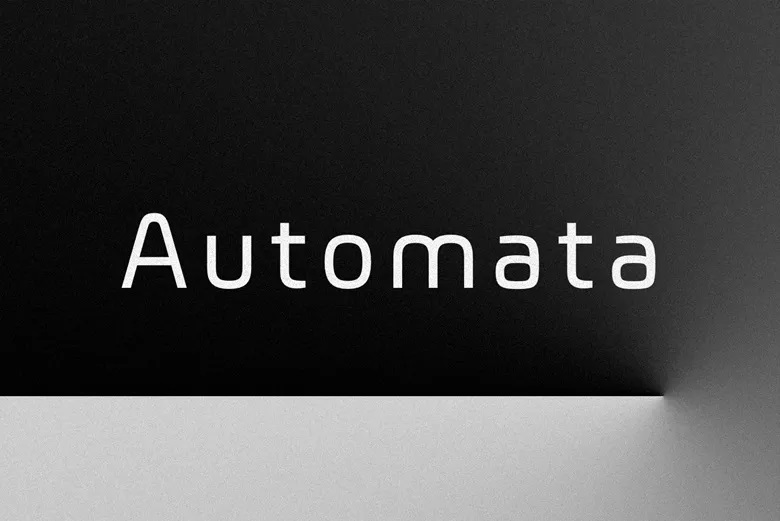
Automata Font Family
Automata is a well-crafted futuristic sans serif font family which is a true representation of modern design with it’s minimalistic and geometrical shapes. However, it’s also good for logos and text at medium/small sizes, which means Automata can be used in many different ways. Besides the elegant and precise design of its shapes and its modern and masculine look,
Automata contains a number of optional features: stylistic sets, discretionary ligatures and a range of weights from extra light to black. The availability of many languages makes Automata a worldwide typeface.
Automata Sans Serif Font Family